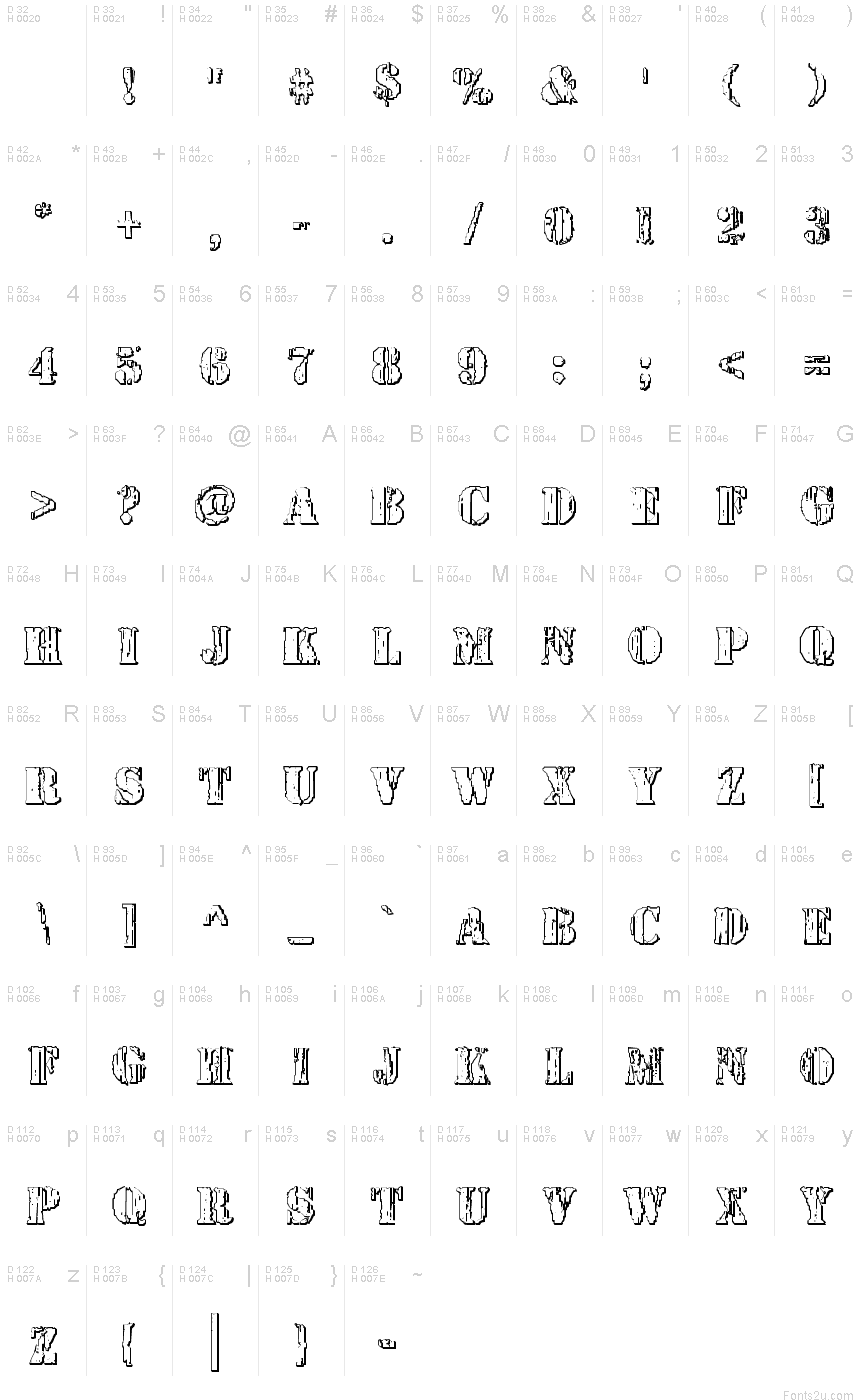
Wetworks 3D Regular
Wetworks is a military stencil font that has been chewed up as if it had been run ragged through a war. Also, the upper case letters are a heavier, blacker weight than the lower case letters. Includes a complete Latin character set. For information on commercial usage, please visit www.iconian.com/commercial.html